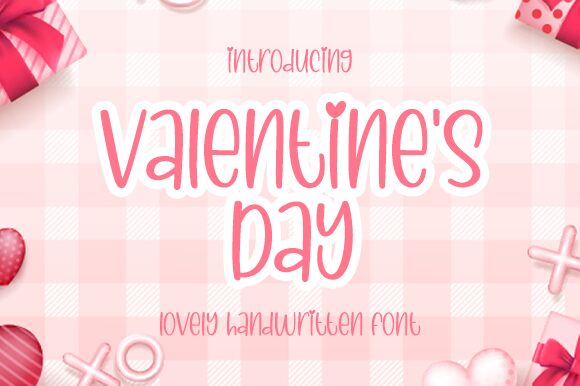
Valentines Day font, designed by Graphix Line Studio, is a beautiful handwritten typeface that embodies the essence of love and romance. Its semi-light weight and semi-condensed width create an elegant look perfect for Valentine's Day cards, wedding invitations, or any project that requires a touch of romance. The swooping curves and delicate lines of this font add a personal touch to your designs. Whether it's for a love letter or a greeting card, Valentines Day font has got you covered. So, don't wait any longer and let this charming typeface spread love in all your creative endeavors!